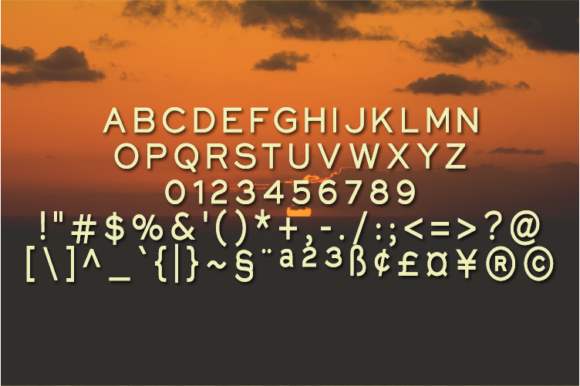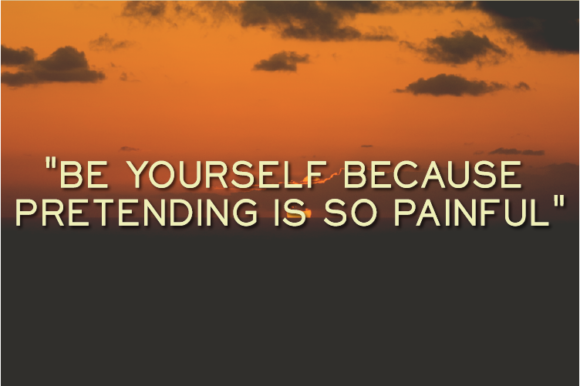
Introducing Firewold Font: The Ultimate Sans Serif for Modern Designs
Are you tired of using overused fonts that lack originality? Look no further than Firewold Font, a simple and authentic sans serif font that’s about to revolutionize your design game. With its clean, thin, and smooth vibe, Firewold is the perfect addition to any project that requires a touch of modernity and sophistication.
The Characteristics of Firewold Font
Firewold Font boasts a range of characteristics that make it an ideal choice for designers and crafters. Here are some of its key features:
- Simple and Authentic: Firewold’s sans serif design ensures that your text remains clear and legible, making it perfect for body text, headings, and titles.
- Clean and Thin: The font’s thin lines and clean aesthetic give it a sleek and modern look that’s perfect for designs that require a minimalist approach.
- Smooth Vibe: Firewold’s smooth curves and rounded edges ensure that your text looks elegant and refined, making it ideal for designs that require a touch of sophistication.
Why Choose Firewold Font?
So, why should you choose Firewold Font for your next design project? Here are just a few reasons:
- Versatility: Firewold Font is incredibly versatile, making it suitable for a wide range of design applications, from branding and advertising to packaging and digital media.
- Legibility: The font’s clear and simple design ensures that your text remains legible, even at small sizes, making it perfect for body text and captions.
- Uniqueness: Firewold Font’s unique design ensures that your text stands out from the crowd, giving your designs a touch of originality and creativity.
How to Use Firewold Font in Your Designs
Using Firewold Font in your designs is incredibly easy. Here are a few tips to get you started:
- Pair it with bold fonts: Firewold Font pairs perfectly with bold fonts, creating a striking contrast that’s perfect for headings and titles.
- Use it for body text: Firewold’s legibility and simplicity make it an excellent choice for body text, ensuring that your readers can focus on your content.
- Add a pop of color: Firewold Font looks stunning in a range of colors, so don’t be afraid to experiment and add a pop of color to your designs.
Design Applications for Firewold Font
Firewold Font is incredibly versatile, making it suitable for a wide range of design applications, including:
- Branding and Advertising: Firewold Font is perfect for branding and advertising projects, giving your text a modern and sophisticated look.
- Packaging Design: The font’s clean and simple design makes it an excellent choice for packaging design, ensuring that your product stands out on store shelves.
- Digital Media: Firewold Font is optimized for digital media, making it perfect for websites, social media graphics, and more.